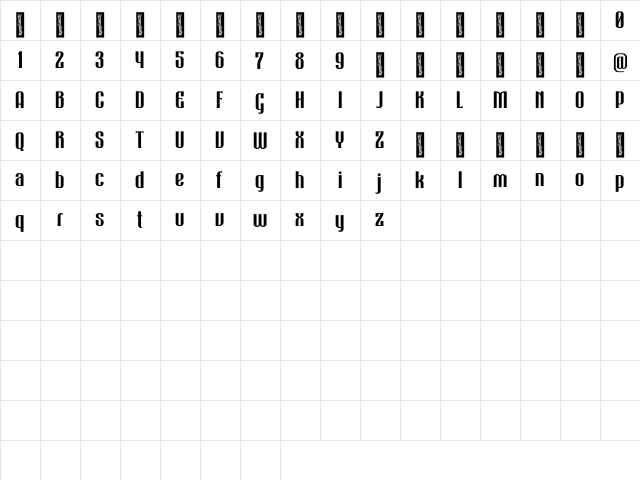
Bigiebang Regular
| Designer | Farhan T. Sudibya |
Design Context for Bigiebang Typeface
Bigiebang takes a measured approach to typography — its balanced proportions and neutral character make it a reliable workhorse for both digital and print work.
Pro Tip: Pair Bigiebang with a font of contrasting weight or personality to build a more expressive typographic hierarchy.